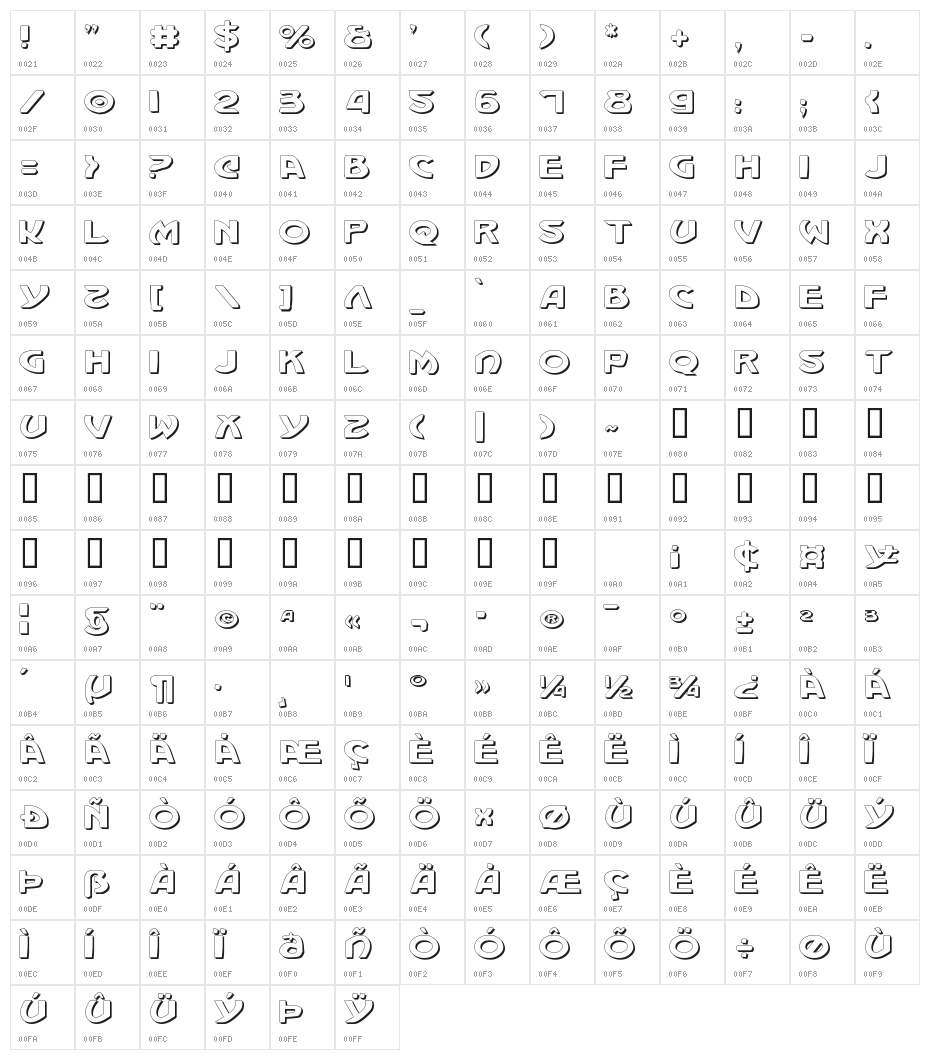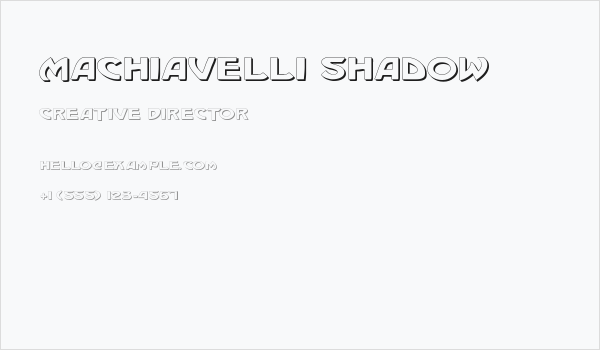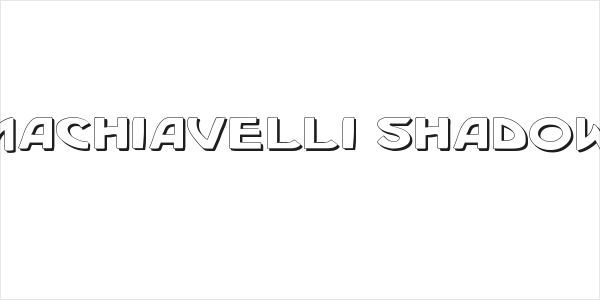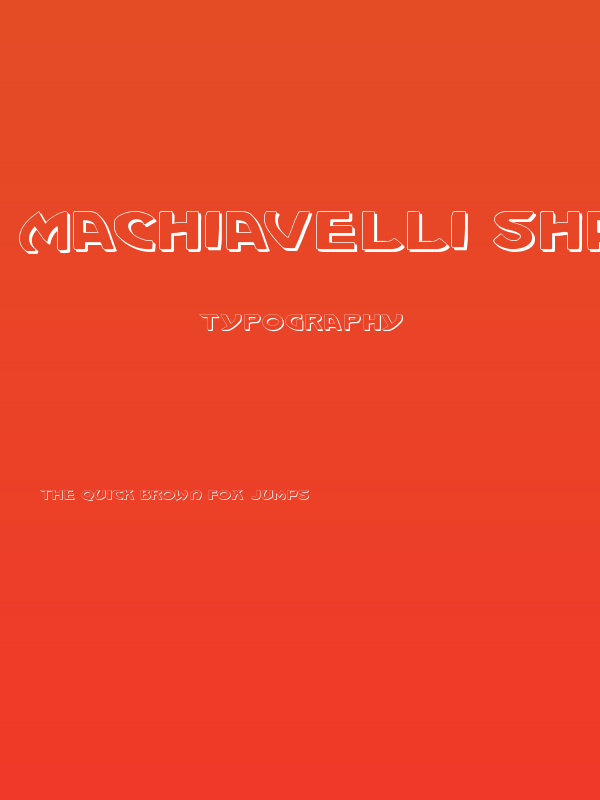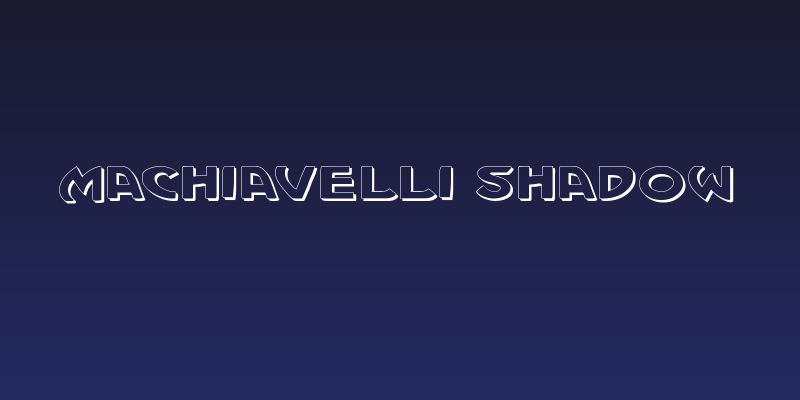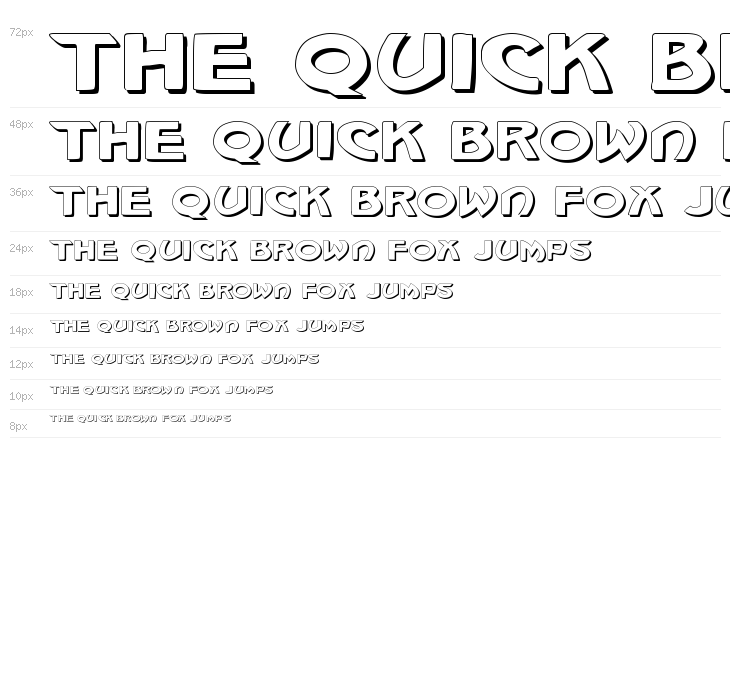
Machiavelli Shadow Font
Machiavelli Shadow Description
This font features a bold, shadowed style that gives a three-dimensional effect to each character. The letters are uppercase and lowercase, with a consistent thickness and a playful, decorative appearance. The shadow effect adds depth, making it ideal for eye-catching designs. The numbers and special characters maintain the same stylistic elements, ensuring uniformity across all glyphs. This font's unique shadowing and bold presence make it stand out, suitable for projects that require a strong visual impact.